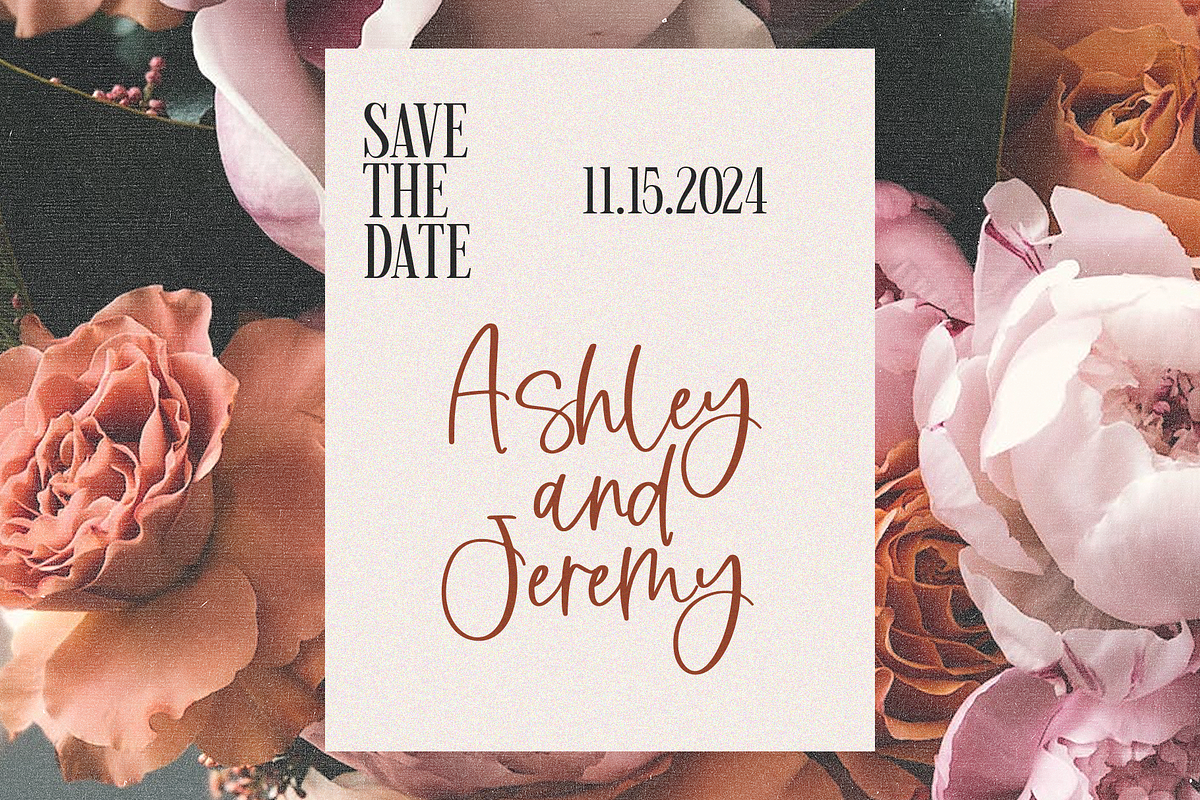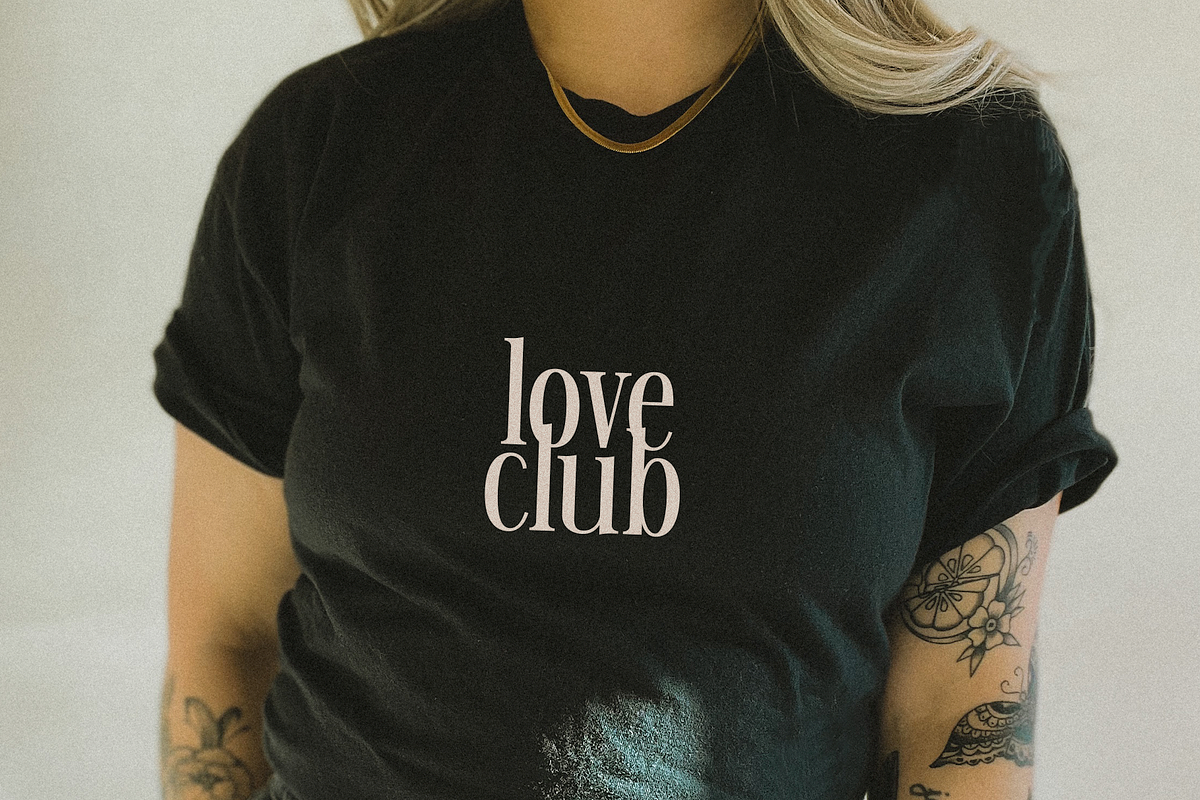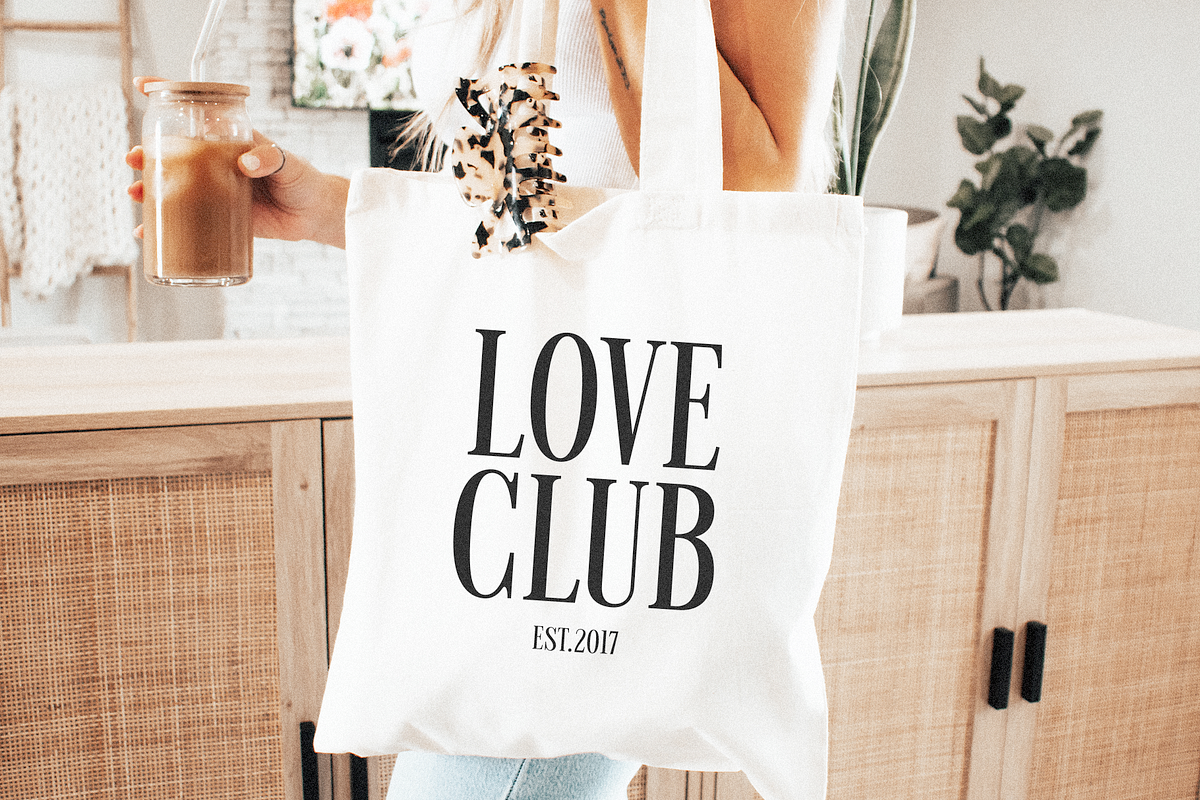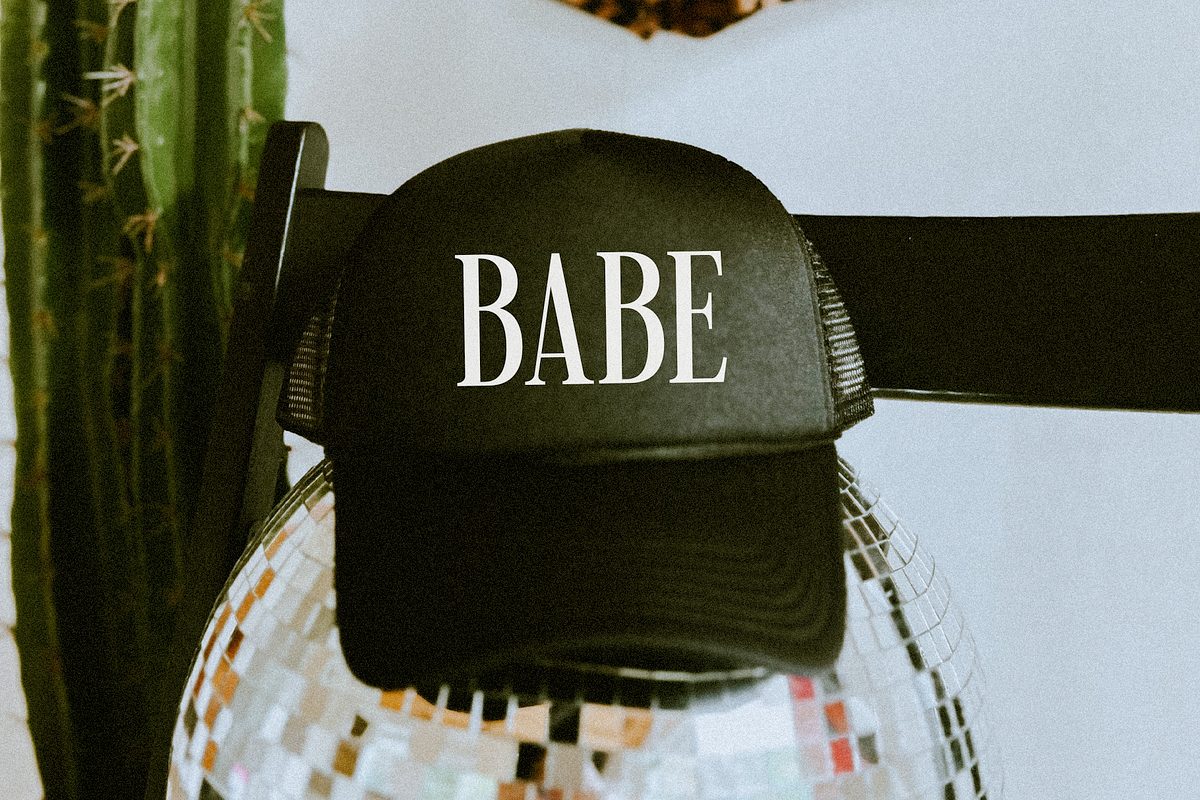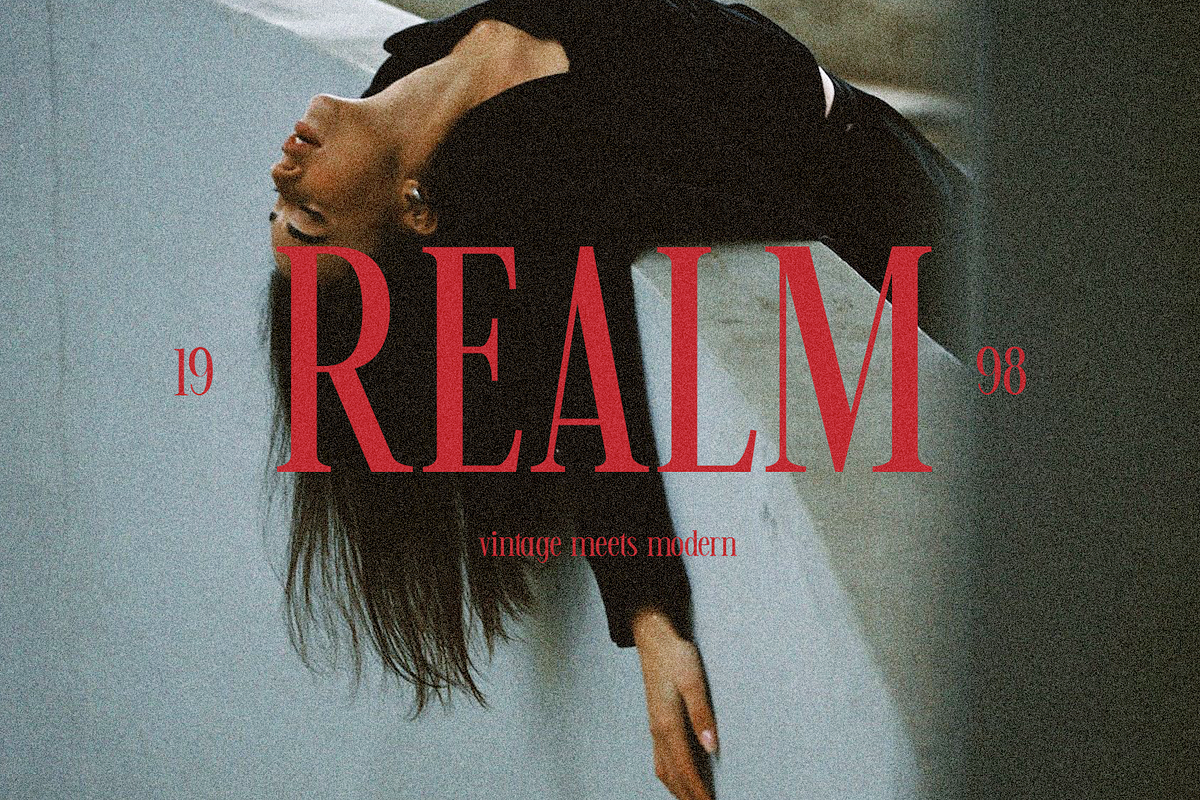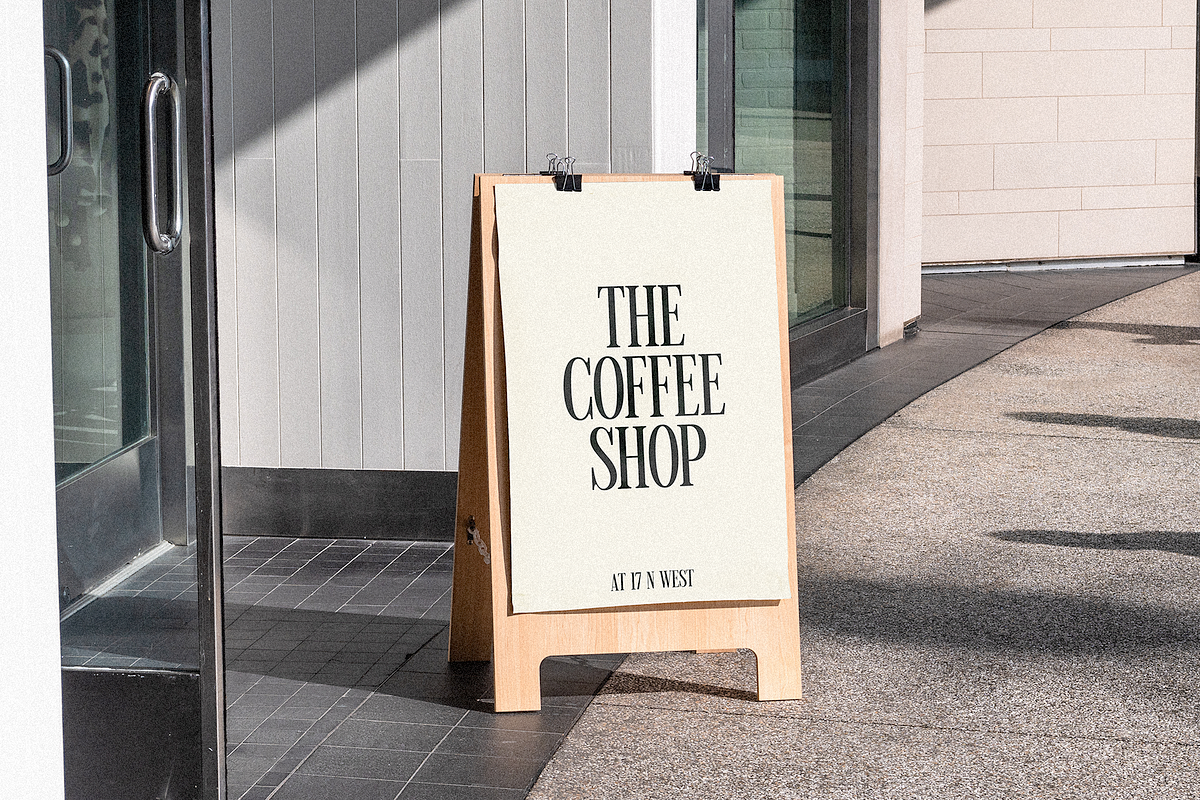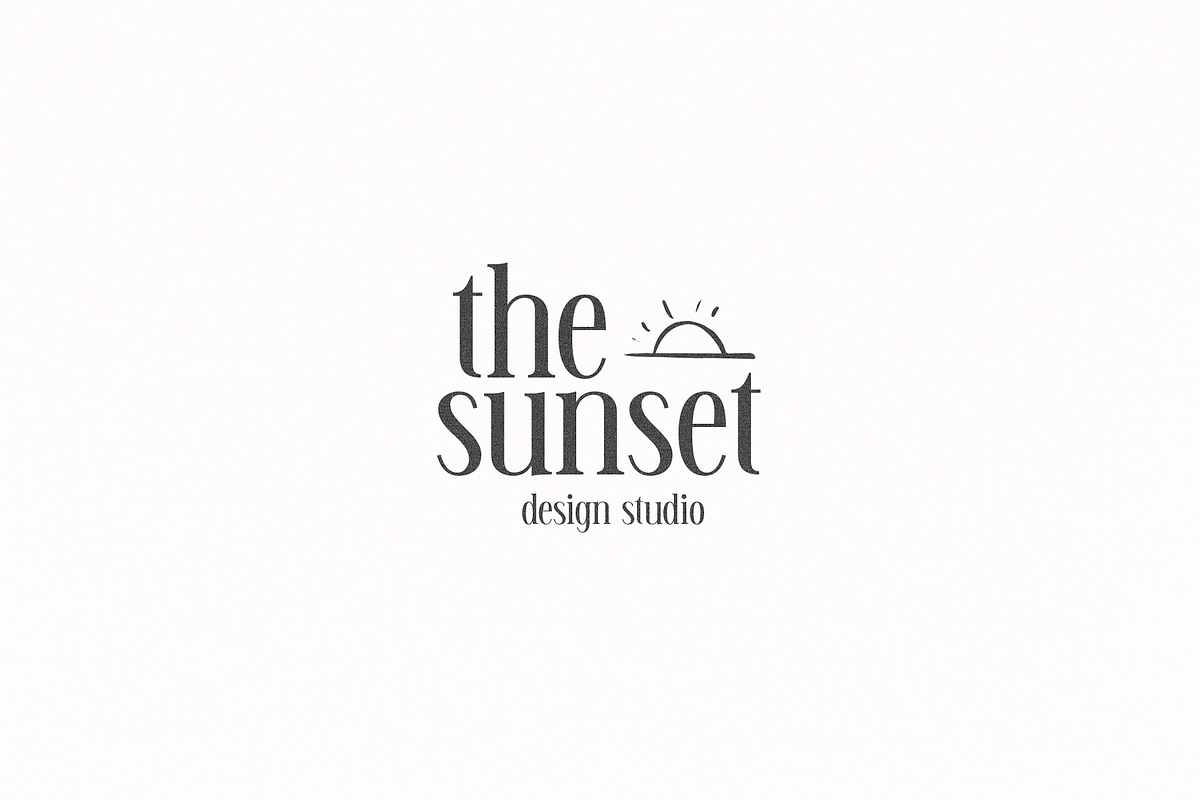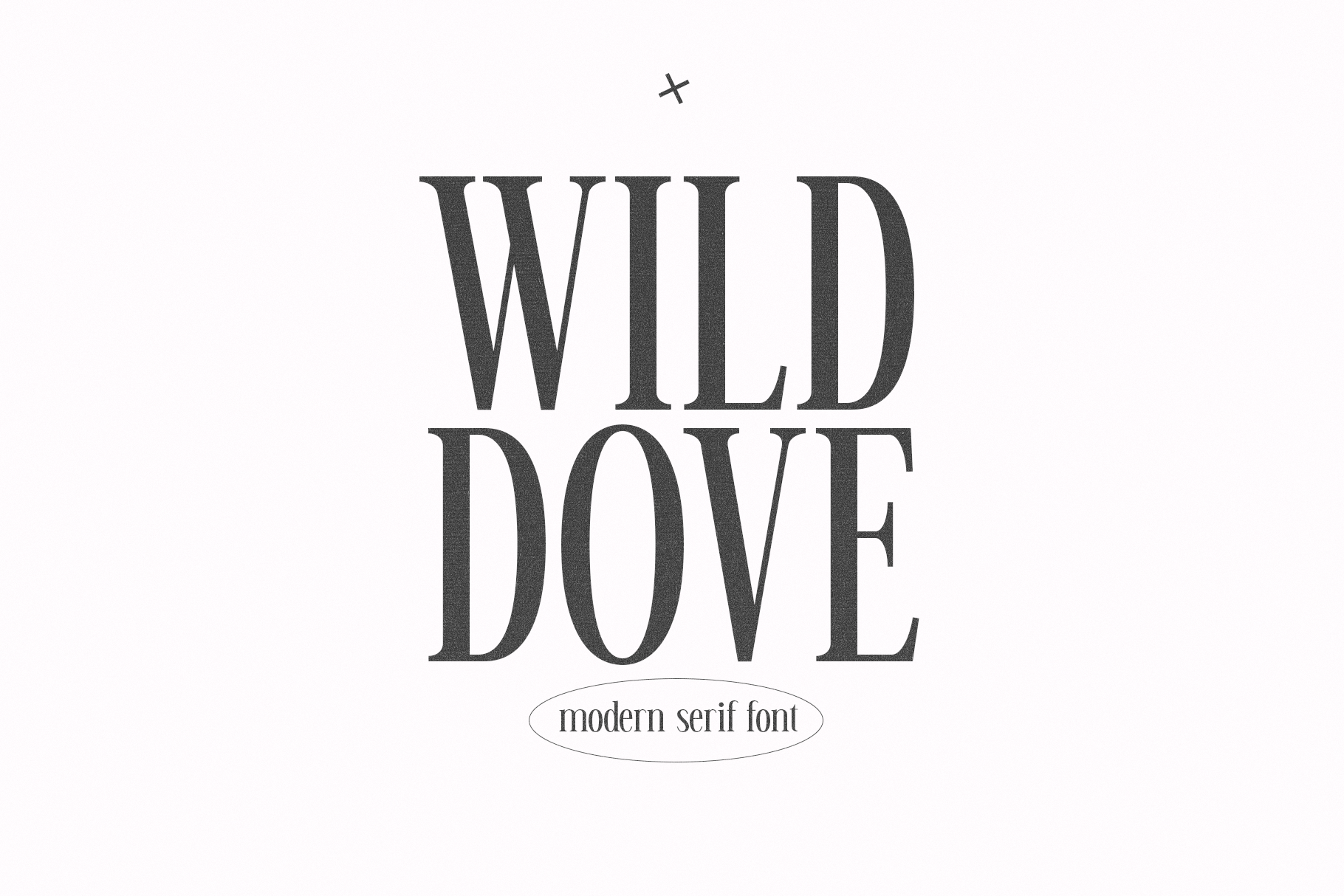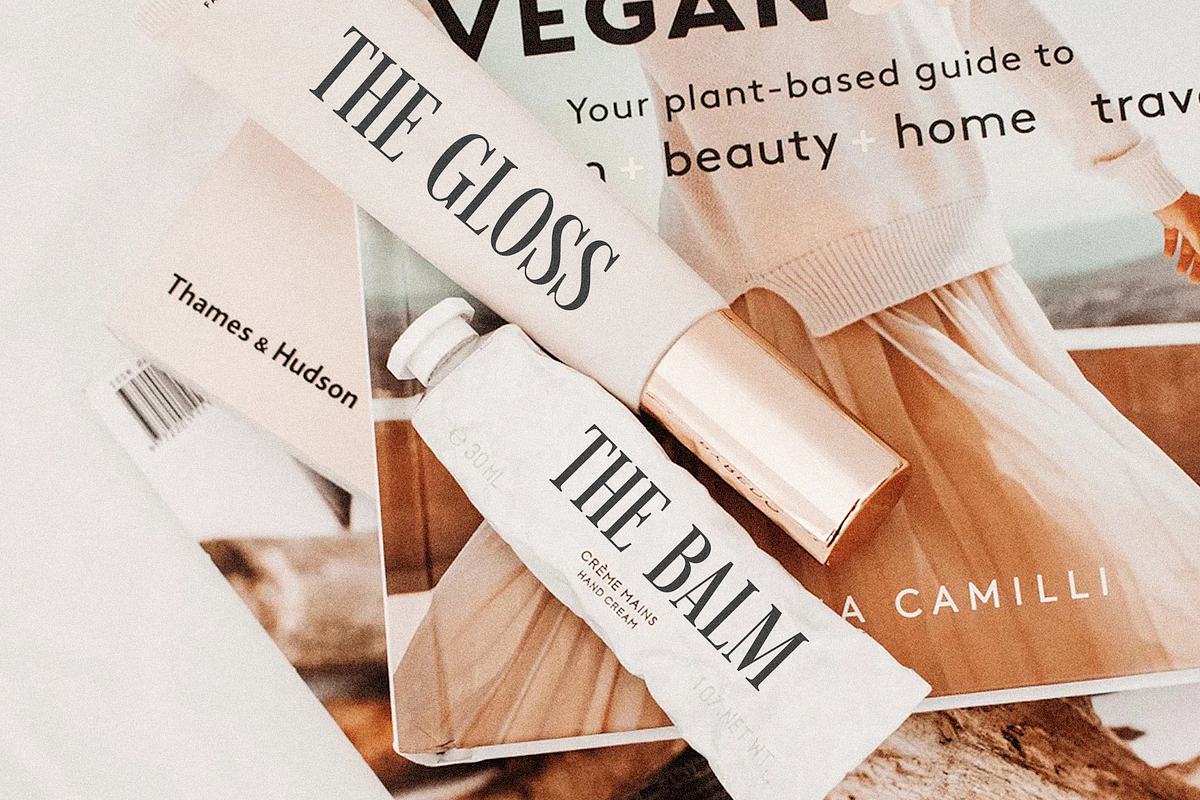
Wild Dove | Tall Serif Font
Wild Dove is a tall, edgy serif font.
This font is perfect for branding, logos, quotes, packaging, advertisements, posters, shirts, svg files, signs, stickers and more!